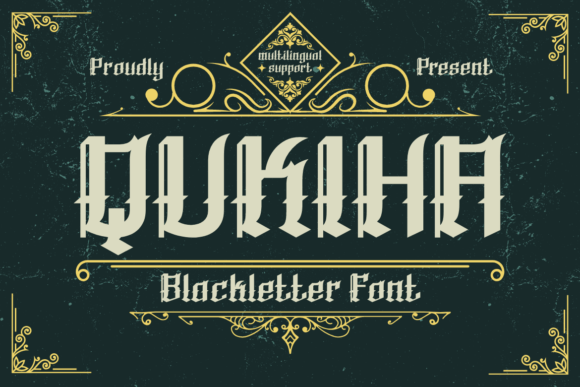
Prepare yourself for the queen of captivating fonts - Qukiha. This blackletter beauty from the Twinletter foundry is not just any font; it's a trip back to the Medieval era, where your designs will be chiseled in stone.
Qukiha is the bold and daring choice for those who aren't afraid to make a statement. Imagine your posters, logos, and album covers dripping in the dark charm of a gothic masterpiece. From haunting horror posters to eye-catching branding, Qukiha will cast a spell on your audience.
Unleash the storyteller within and let your designs speak volumes. Qukiha's distinct letterforms will transport you to a world of mystery and intrigue, where every letter is a stroke of brilliance.
With Qukiha, you'll turn heads, spark conversations, and leave an unforgettable impression. So, are you ready to embrace the power of Qukiha and make your designs dance with elegance and character? Get ready to cast your spell and take your creativity to new heights.